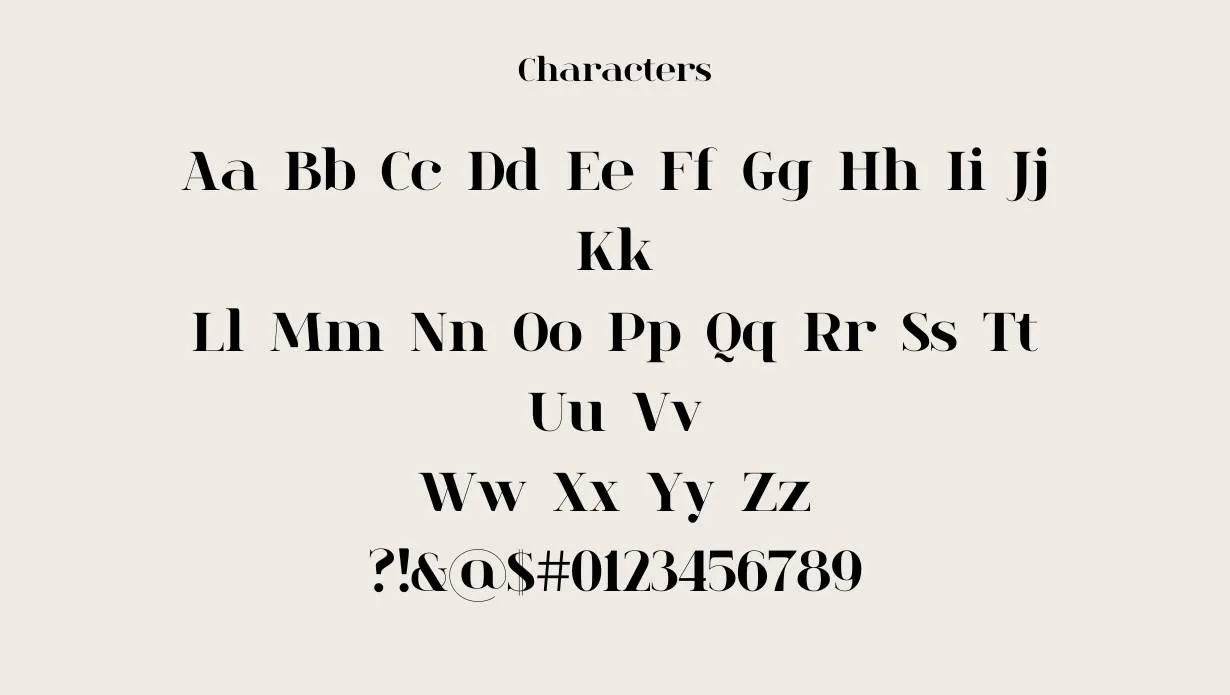
Spinwerad Font features a dynamic and energetic design, making it suitable for projects that require a sense of motion and excitement. Often used in sports-related designs, event promotions, and creative projects, this font captures a dynamic spirit.
- Spinwerad Regular
- Spinwerad Medium
- Spinwerad Bold
Spinwerad Font Info
| Name | Spinwerad Font |
| Designer | GLUK fonts |
| Style | Serif |